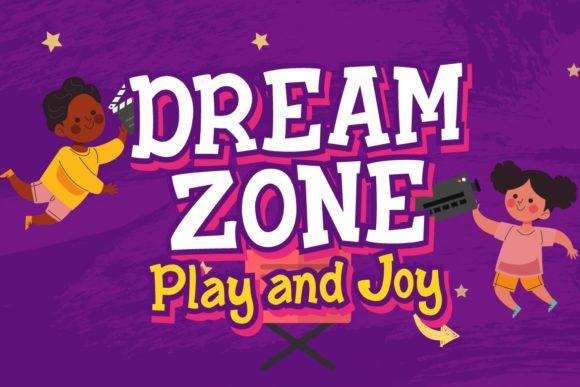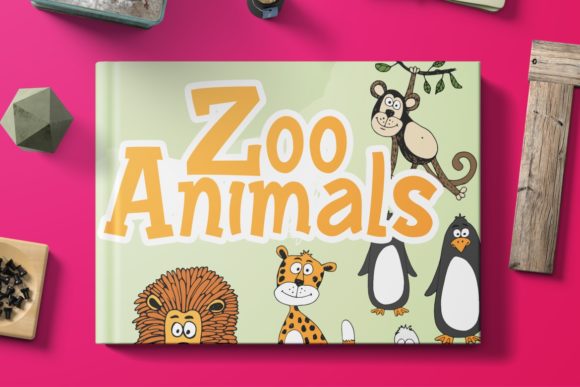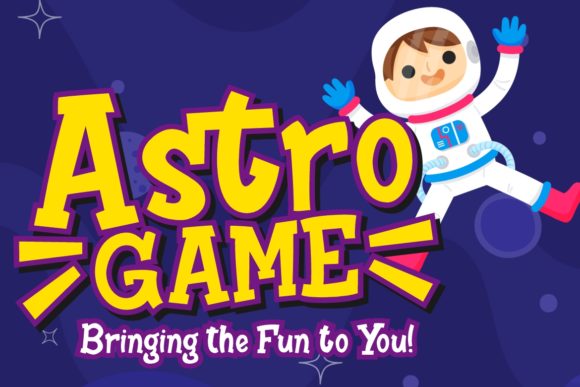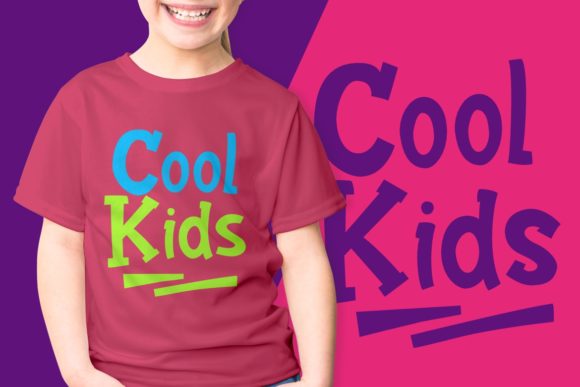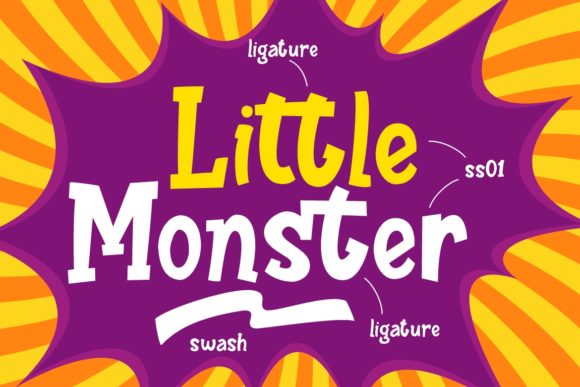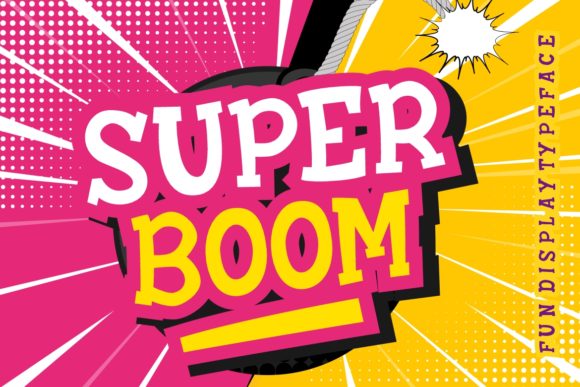
Hattrick Font: The Ultimate Display Font for Creative Designs
Are you a designer or crafter looking for a font that can add a playful and charming touch to your creations? Look no further than the Hattrick Font! This cool and chunky lettered display font is perfect for cartoon-related designs, children’s games, and any project that requires a lovely and whimsical feel.
What Makes Hattrick Font So Special?
Hattrick Font is a unique and eye-catching font that is sure to make your designs stand out. Its chunky and bold letters are carefully crafted to give your creations a fun and playful look that is sure to appeal to a wide range of audiences. Whether you’re designing a logo, a poster, or a digital graphic, Hattrick Font is an excellent choice.
Key Features of Hattrick Font
- PUA Encoded: Hattrick Font is PUA (Private Use Area) encoded, which means that you can access all of the glyphs and swashes with ease. This makes it easy to use and customize the font to suit your design needs.
- Chunky and Bold Letters: The font features chunky and bold letters that are perfect for creating eye-catching designs.
- Playful and Whimsical Feel: Hattrick Font has a playful and whimsical feel that is sure to add a touch of fun and personality to your designs.
- Versatile: The font is versatile and can be used for a wide range of design projects, from cartoon-related designs to children’s games and more.
Uses of Hattrick Font
Hattrick Font is a versatile font that can be used for a wide range of design projects, including:
- Cartoon-Related Designs: The font is perfect for creating cartoon-related designs, such as logos, posters, and digital graphics.
- Children’s Games: Hattrick Font is a great choice for children’s games, as it adds a playful and fun touch to the design.
- Logos and Branding: The font can be used to create eye-catching logos and branding materials that are sure to stand out.
- Posters and Flyers: Hattrick Font is perfect for creating posters and flyers that require a bold and attention-grabbing font.
Why Designers and Crafters Love Hattrick Font
Designers and crafters love Hattrick Font for its unique and playful feel. The font is easy to use and customize, and its chunky and bold letters make it perfect for creating eye-catching designs. Here are some reasons why designers and crafters love Hattrick Font:
- Easy to Use: The font is easy to use and customize, making it perfect for designers and crafters of all skill levels.
- Unique and Playful Feel: Hattrick Font has a unique and playful feel that is sure to add a touch of personality to any design.
- Versatile: The font is versatile and can be used for a wide range of design projects.
- High-Quality: Hattrick Font is a high-quality font that is designed to deliver exceptional results.
In conclusion, Hattrick Font is a cool and chunky lettered display font that is perfect for designers and crafters looking to add a playful and charming touch to their creations. Its unique and playful feel, versatility, and ease of use make it an excellent choice for a wide range of design projects. Whether you’re designing a logo, a poster, or a digital graphic, Hattrick Font is sure to deliver exceptional results.